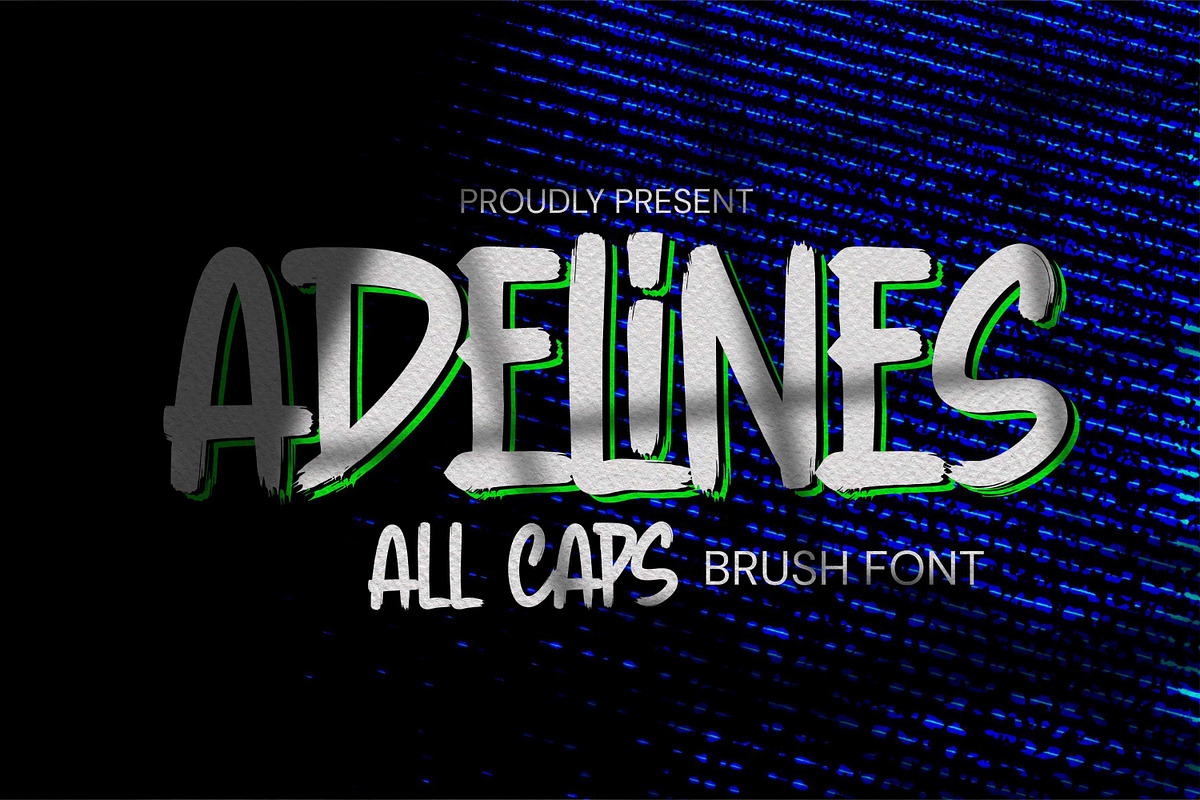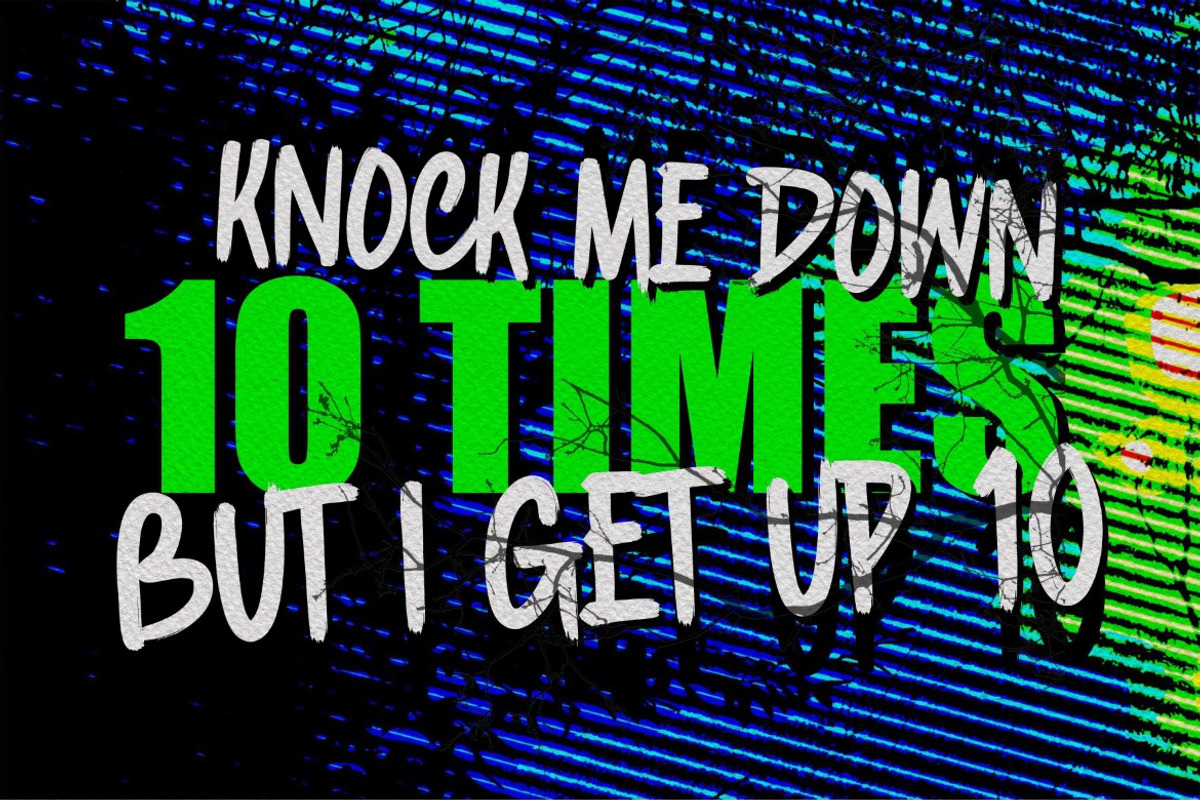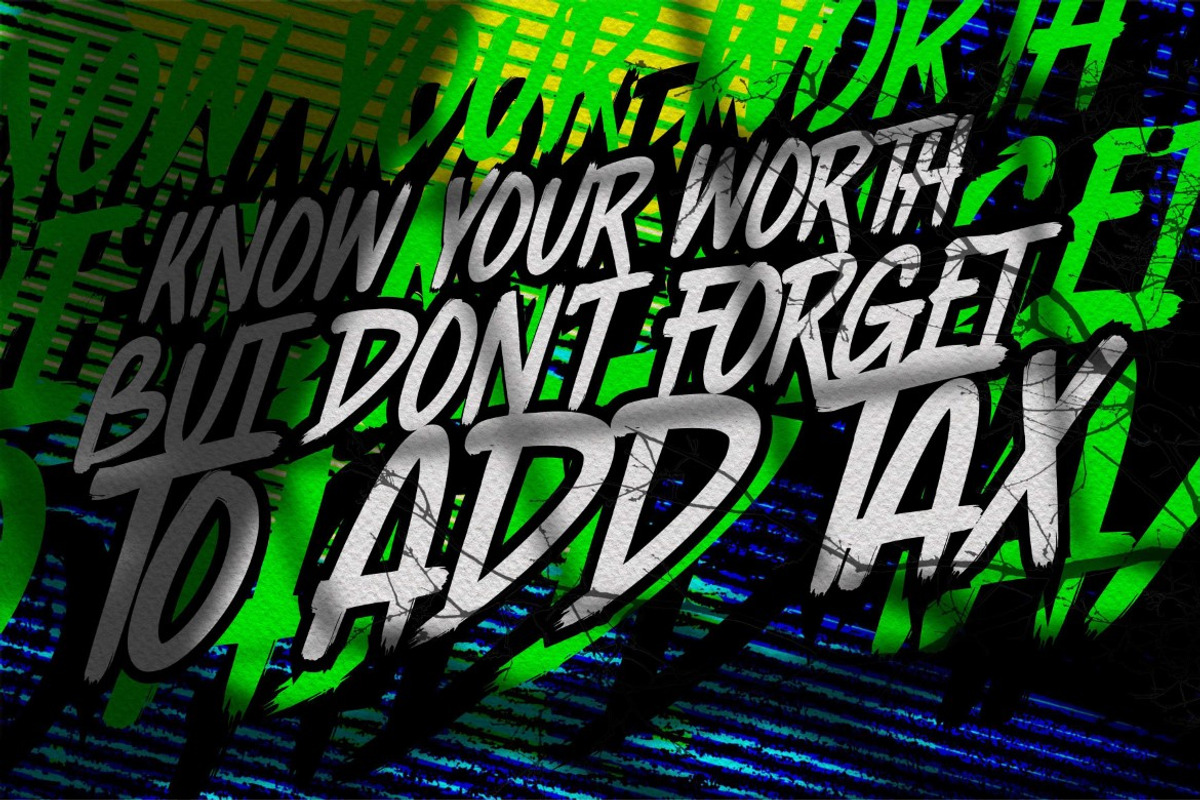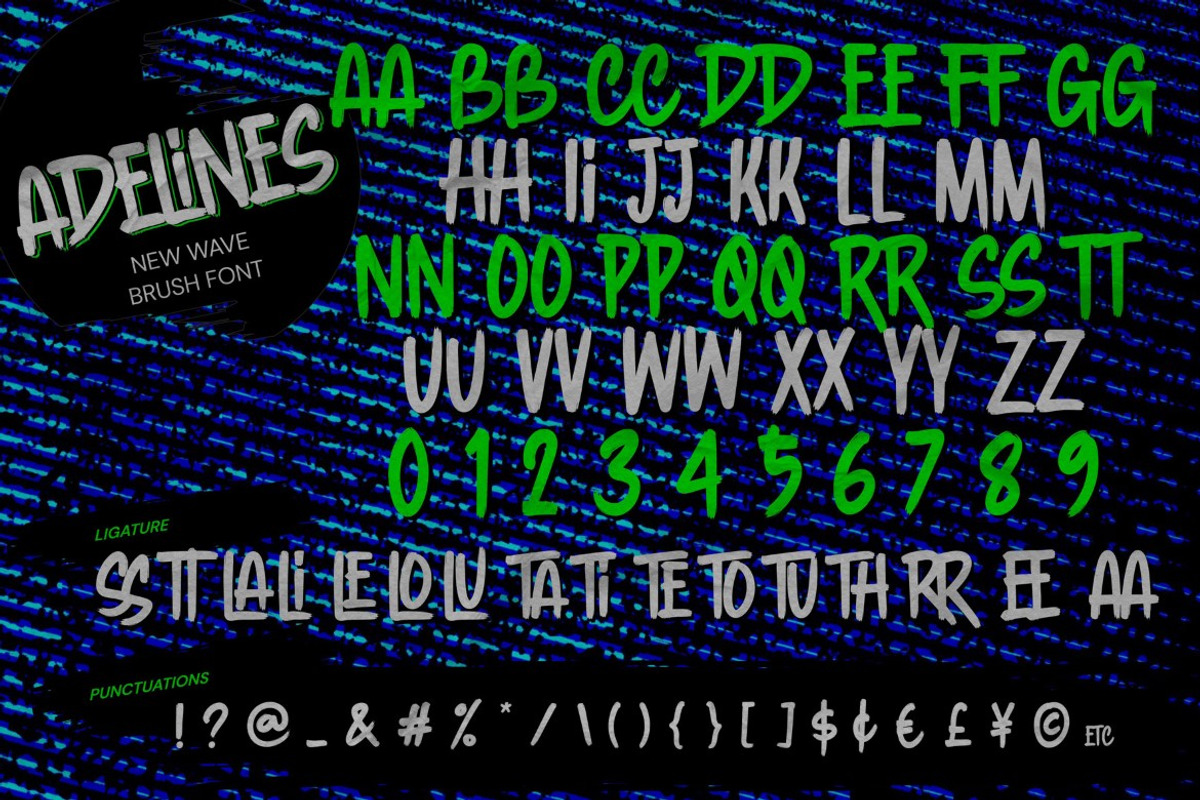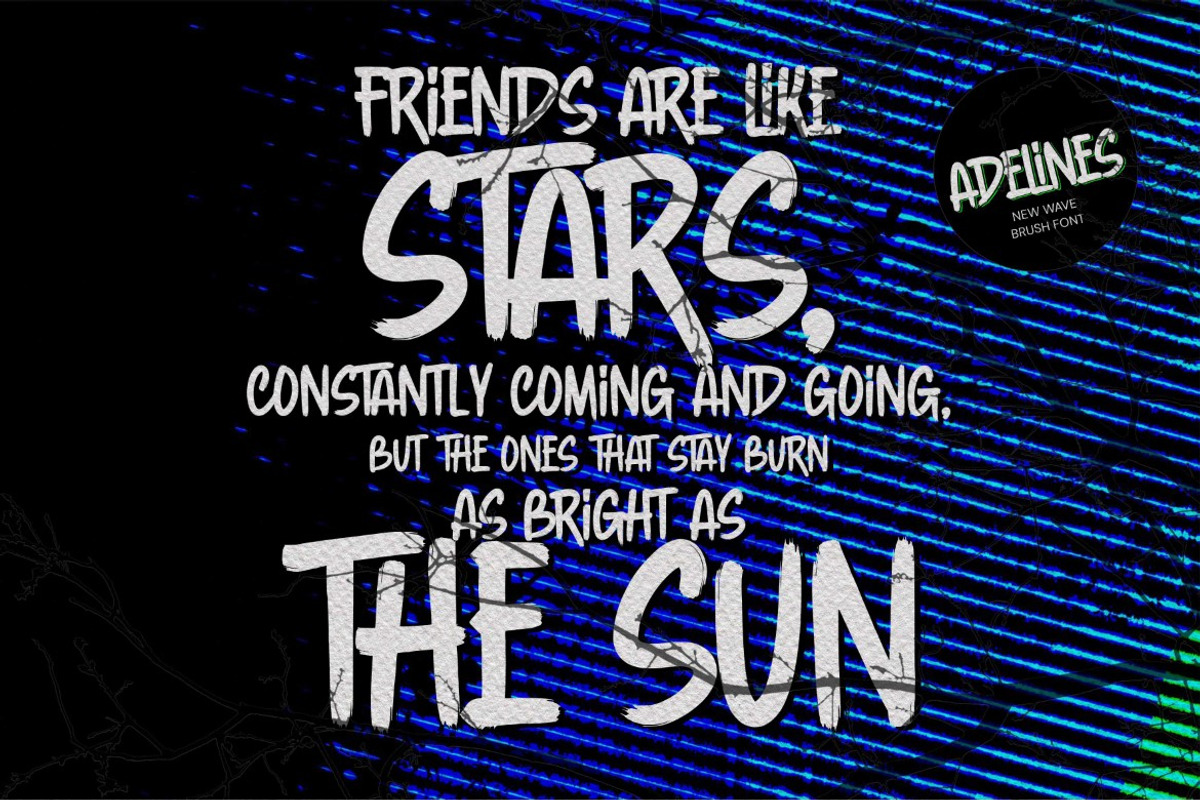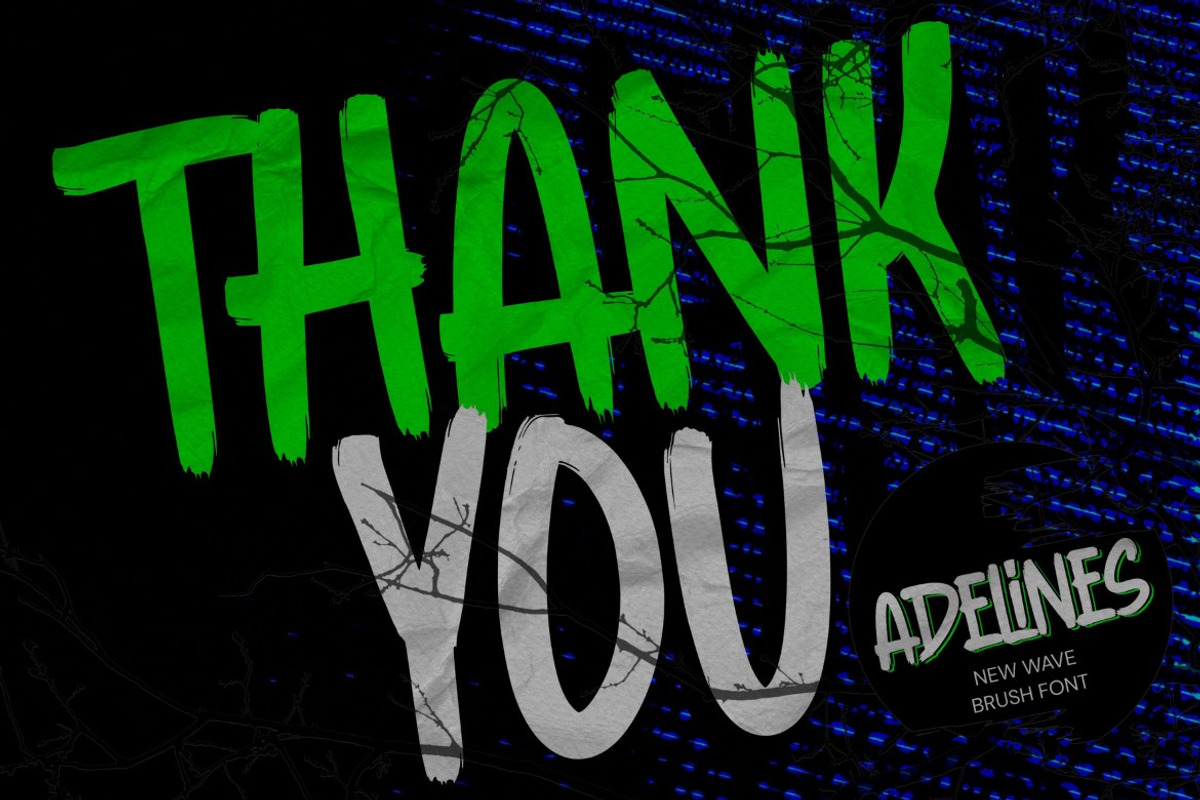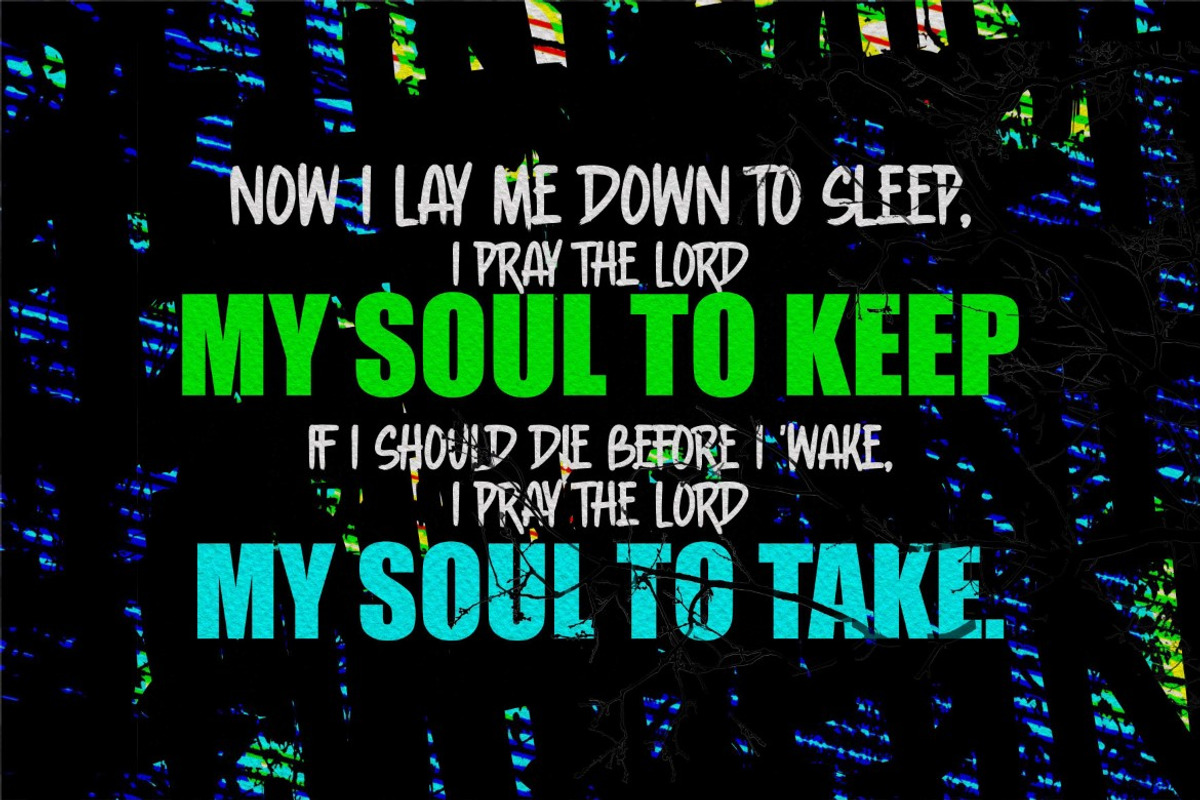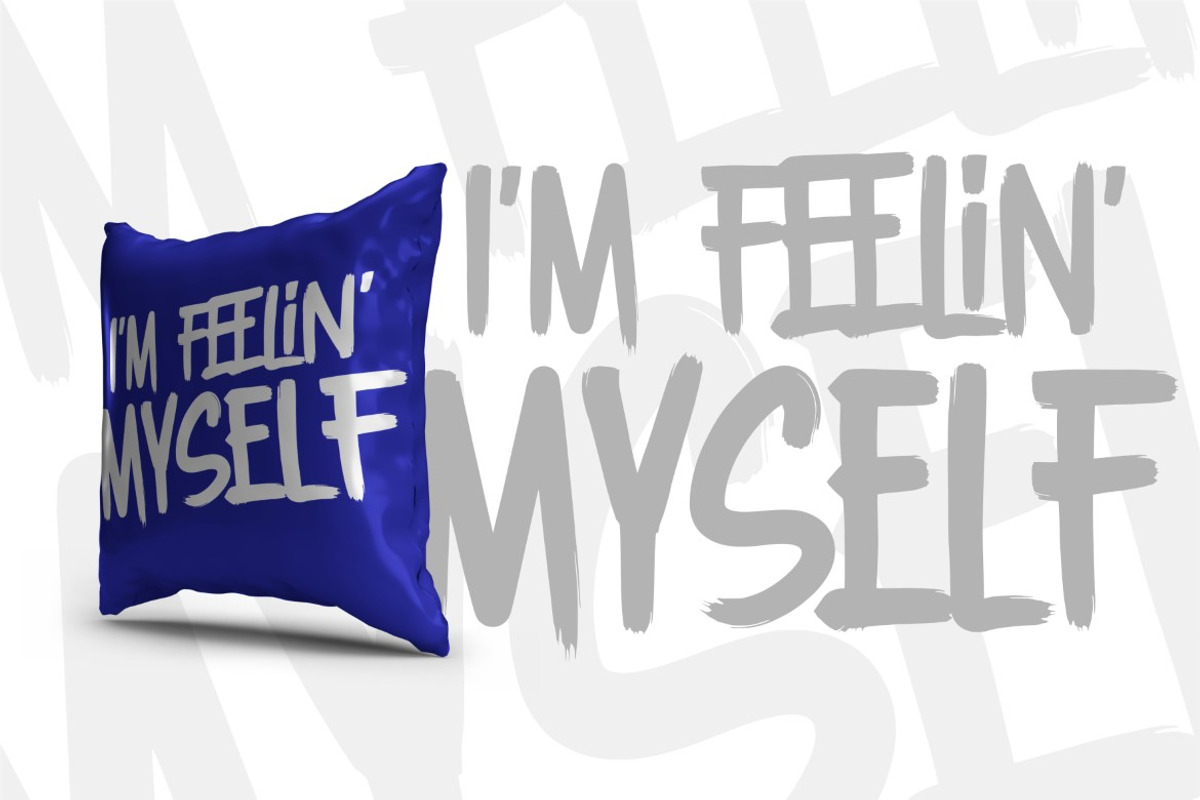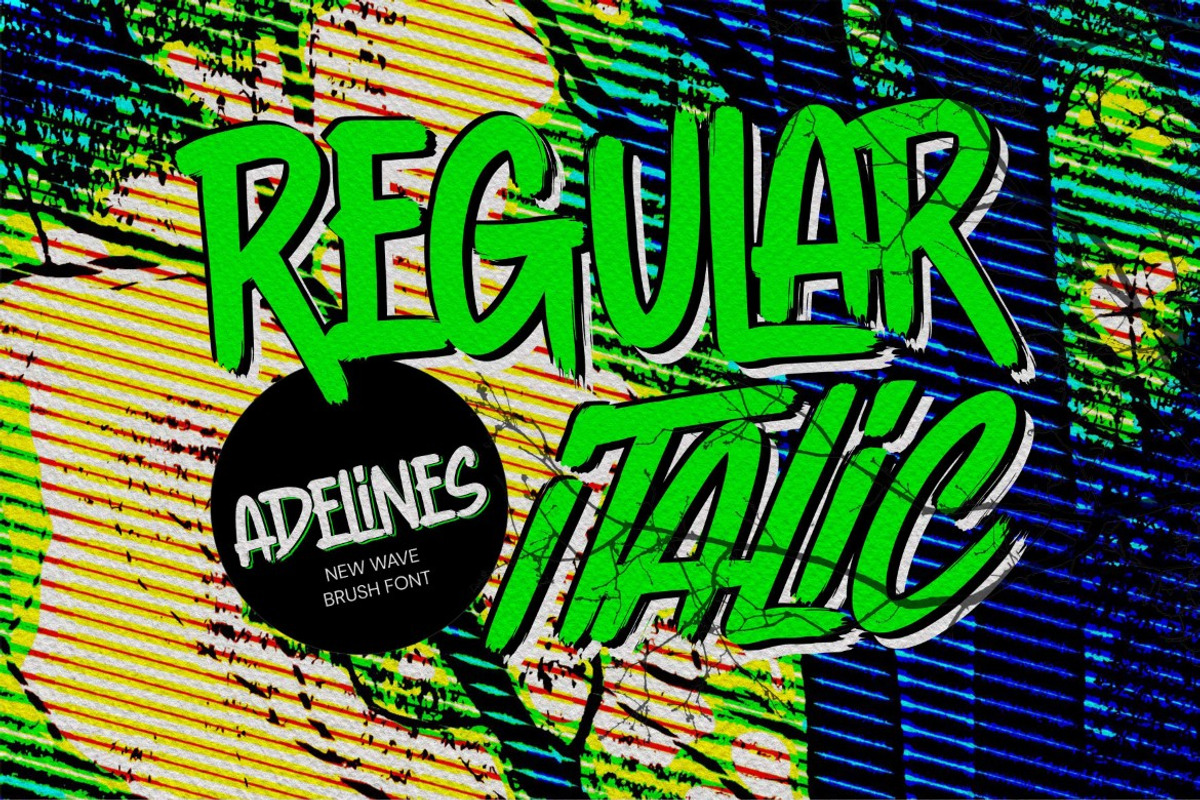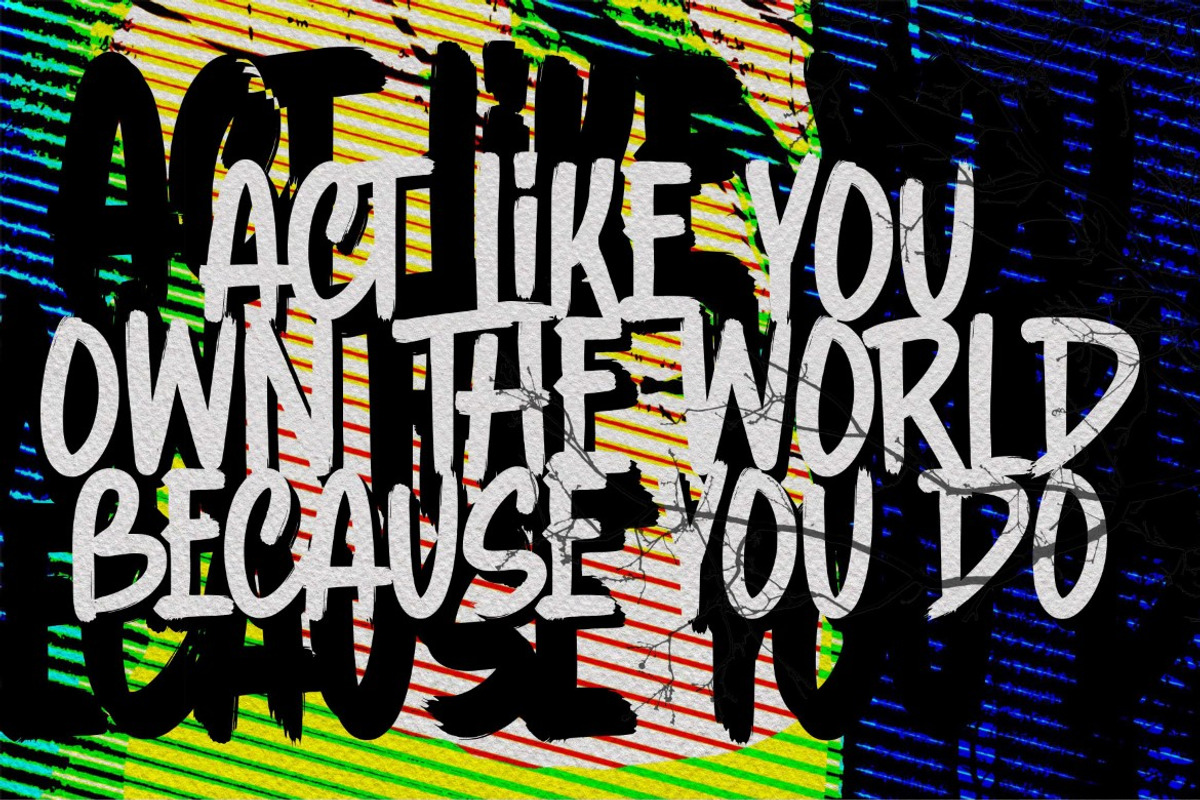
Adelines - Rough Brush Font
Here comes a New font, Adelines is a handwritten brush that is written casually and quickly. Letters are made with brushes on Procreate. Then crafted carefully drawn into vector format.
That is why Adelines has charming, authentic and relaxed characteristic more natural look to your text with a more natural look to your text. You can activate Ligature OpenType panel to make these two styles. It also has many alternatives and underlines that make your text and design more interesting.Adelines is perfect for homeware designs,branding projects, Logo design, Quotes product packaging